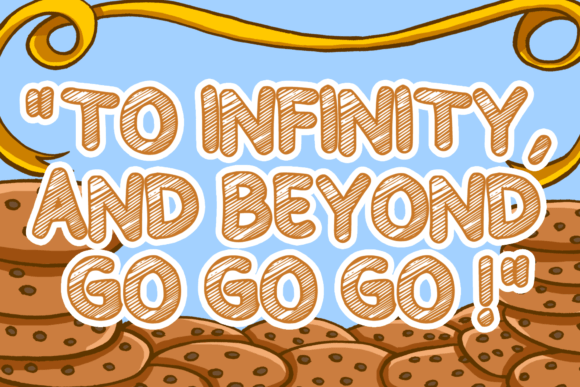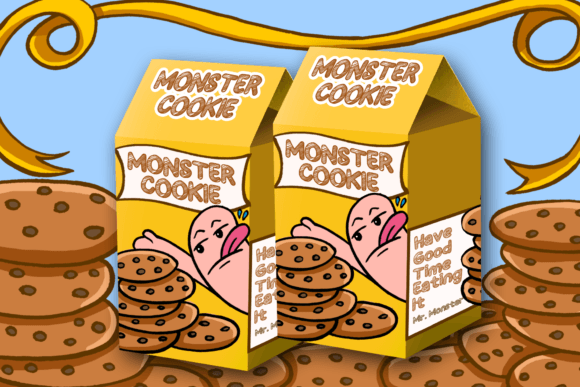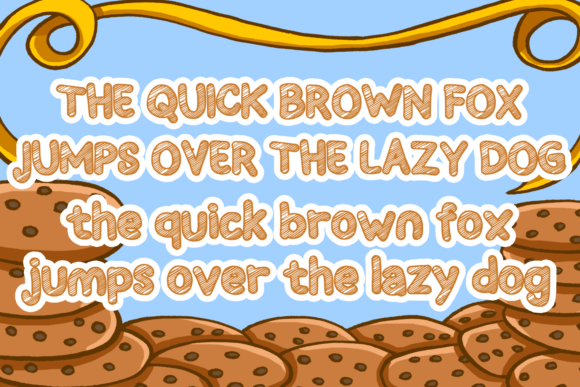
Introduction to Mother’s Cookie Font
Mother’s Cookie is a lovely Mother’s Day display font, you can use it on your daily activity too.
Use this font for a multitude of design ideas such as mugs, t-shirt designs, eye-catching logo designs, greeting cards, and many more This font will add a pretty touch to your designs.